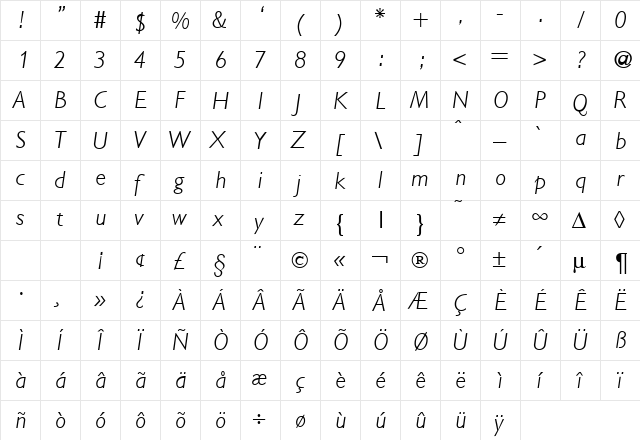
GibsonLight RegularItalic Font Preview
Design Context for GibsonLight Typeface
GibsonLight takes a measured approach to typography — its balanced proportions and neutral character make it a reliable workhorse for both digital and print work. The dynamic lean of this cut emphasises speed and emphasis in any layout. The delicate stroke weight brings airiness and refinement to layouts.
Pro Tip: Try GibsonLight for annotation and caption copy alongside an upright companion — the contrast in angle creates a dynamic but ordered typographic system.